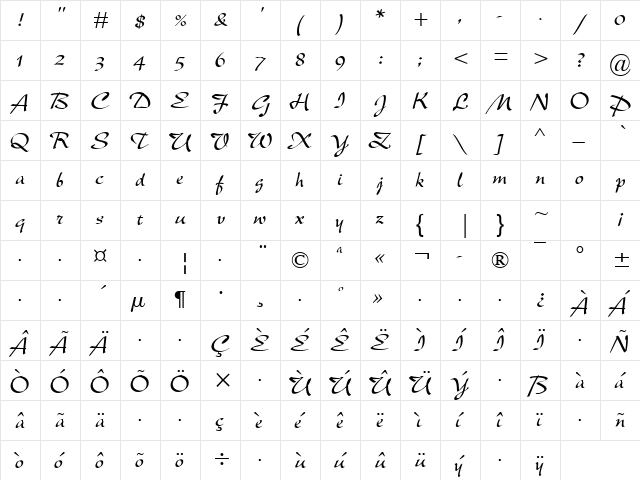
Latina Regular
Design Context for Latina Typeface
Latina is a composed and adaptable typeface that performs quietly and consistently across a wide range of design contexts.
Pro Tip: Pair Latina with a font of contrasting weight or personality to build a more expressive typographic hierarchy.